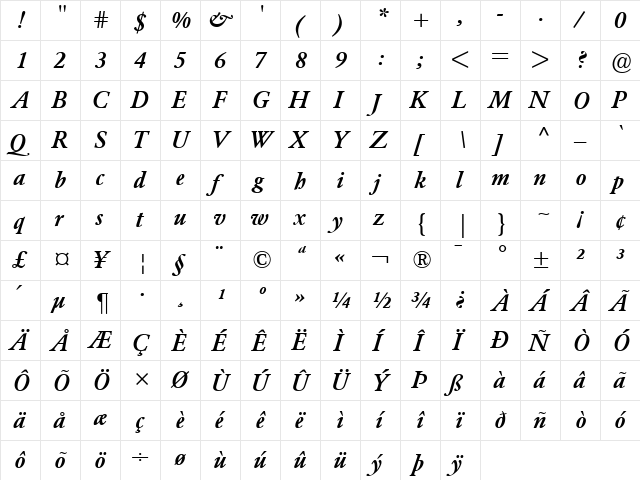
Garamond BE ItalicBold Font Preview
Garamond BE ItalicBold
Design Context for Garamond BE Typeface
Garamond BE takes a measured approach to typography — its balanced proportions and neutral character make it a reliable workhorse for both digital and print work. Its italic angle brings a sense of urgency and motion to the letterforms. Its bold stroke weight gives it real presence on the page.
Pro Tip: Use Garamond BE for emphasis, pull quotes, and subheadings where its slanted energy can add rhythm to the layout.